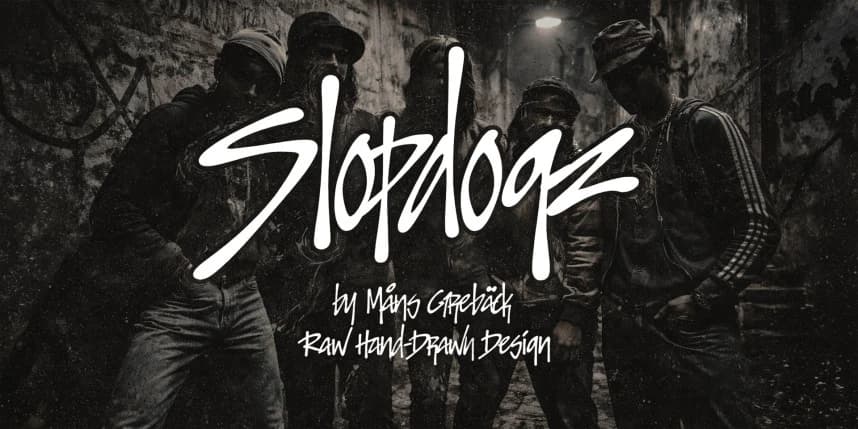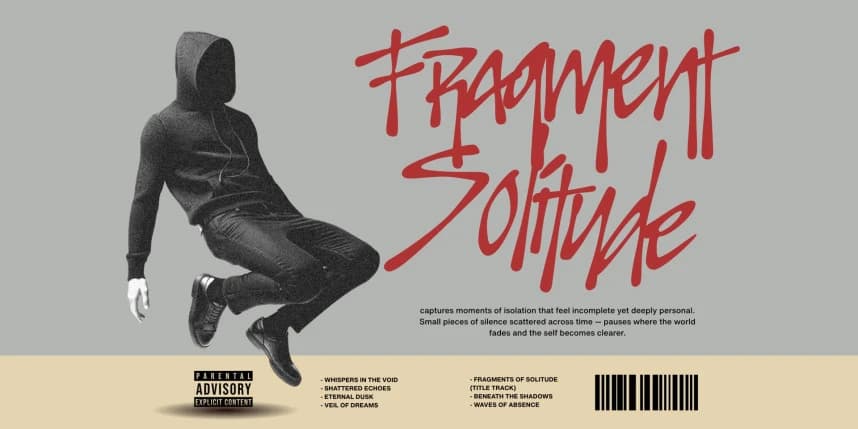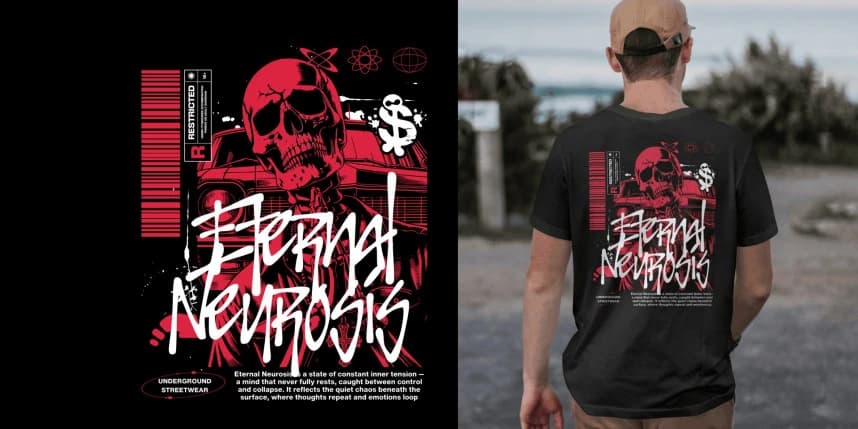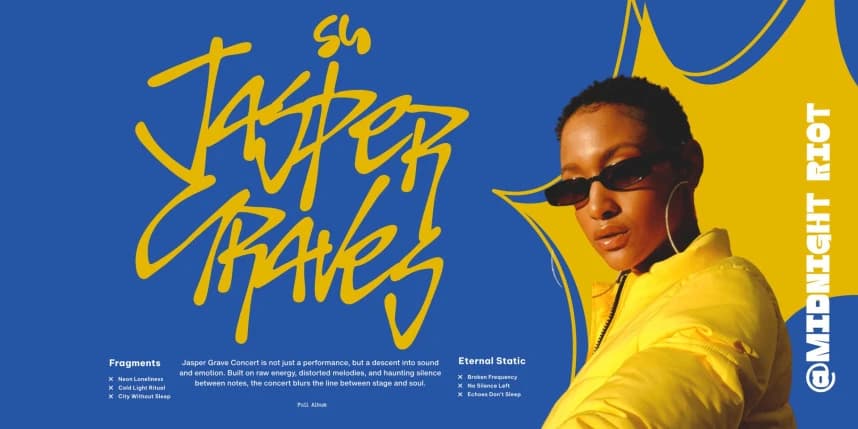
Slopdogz Graffiti Font
Slopdogz Graffiti Font is a raw, hand-drawn font with an aggressive flow and a loose, street-level attitude. The letterforms are written in sharp motion, with uneven pressure, fast strokes, and a slightly reckless rhythm.